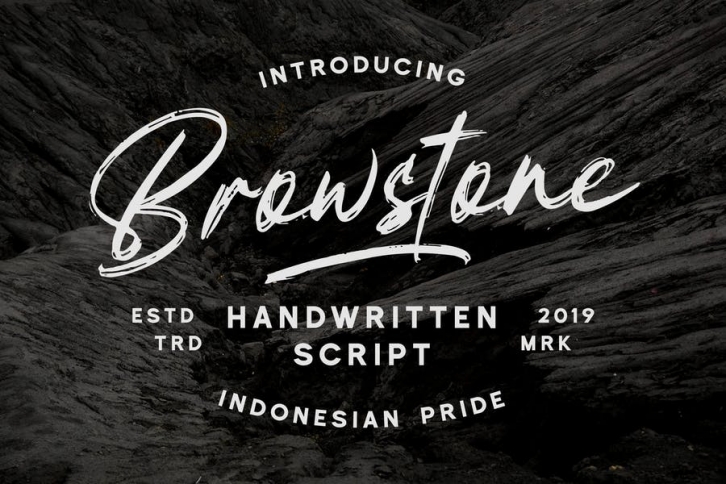
Are you looking for a masculine brush script brush font? We can help! Try to download our Browstone font. The font is suitable to use for casual purpose. Try to use it on Wedding invitation, photography, branding and signature to see the best of it :)